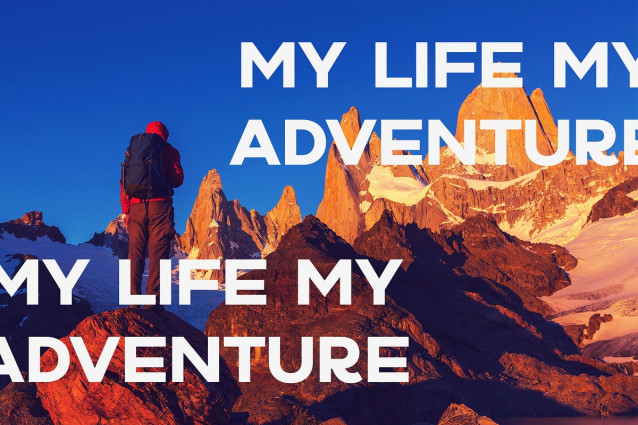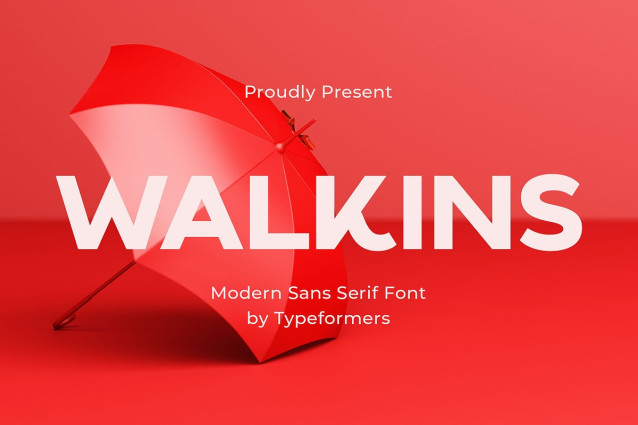
Walkins Font
Walkins Font – Modern Sans Serif, is a modern and simple font, best used as a display for headings, logos, branding, magazines, product packaging and invitations.